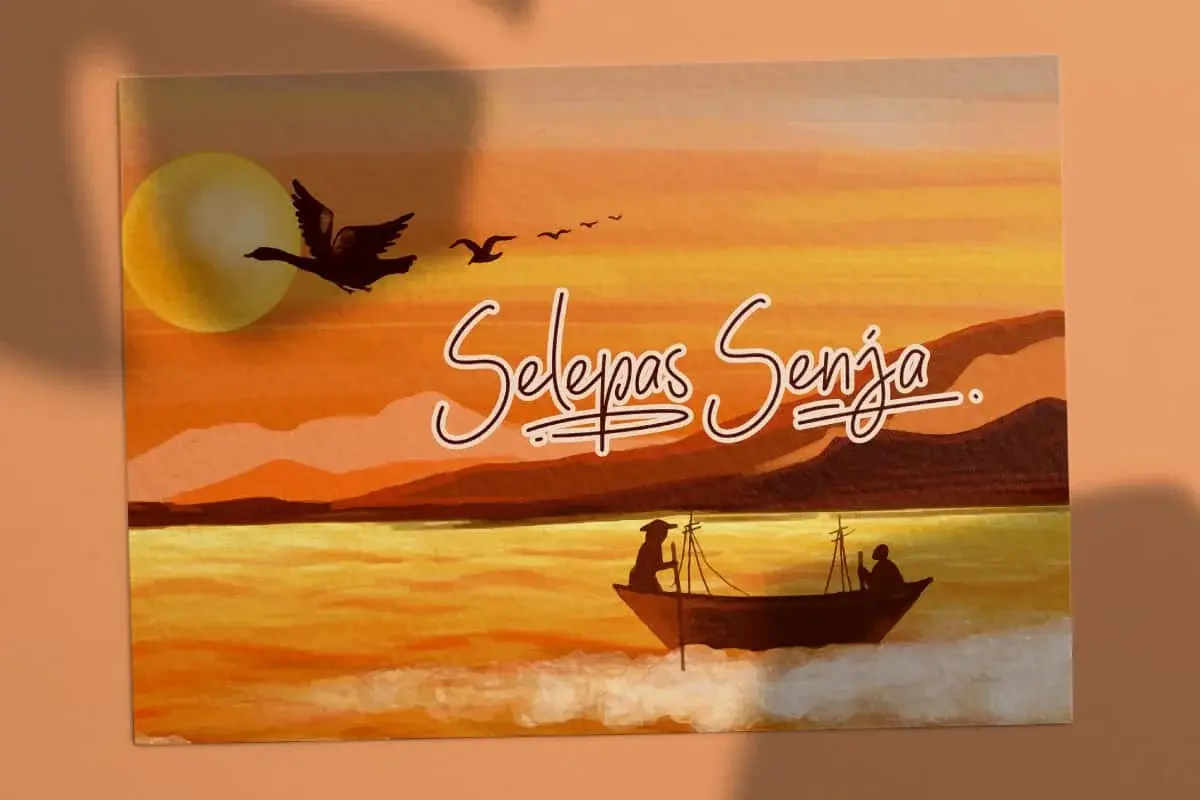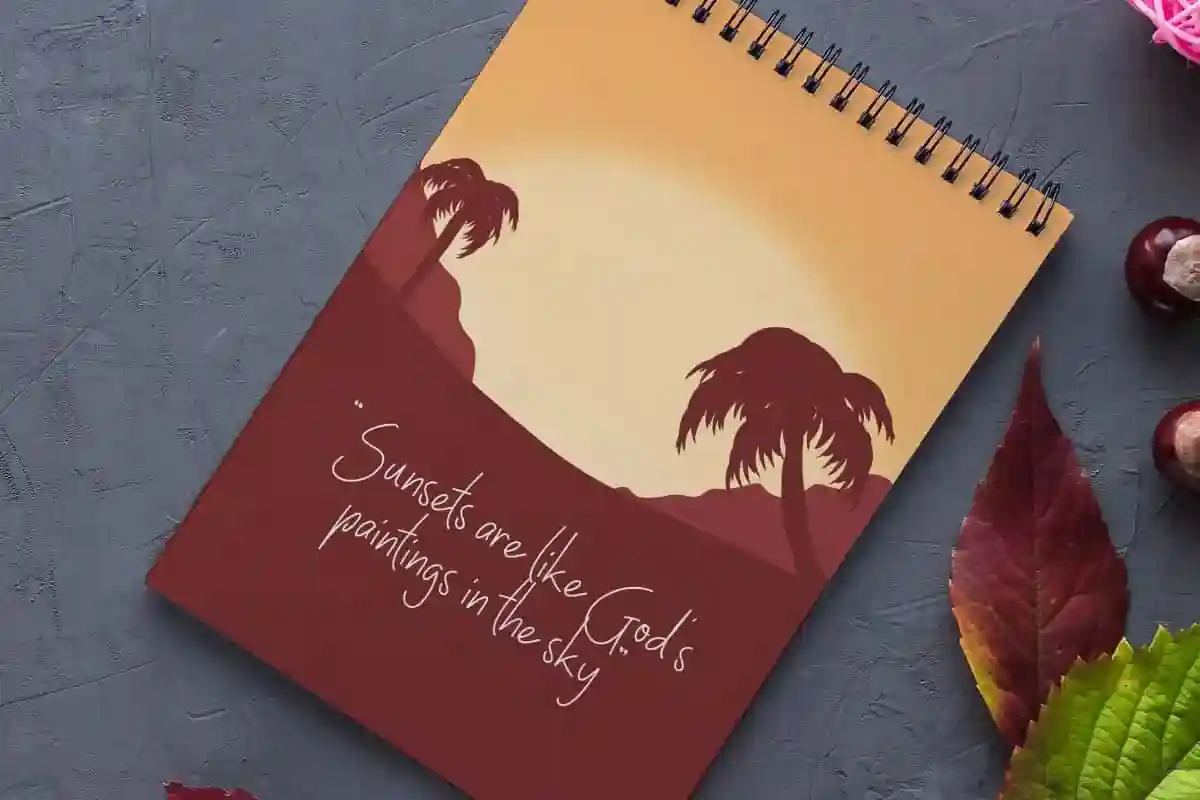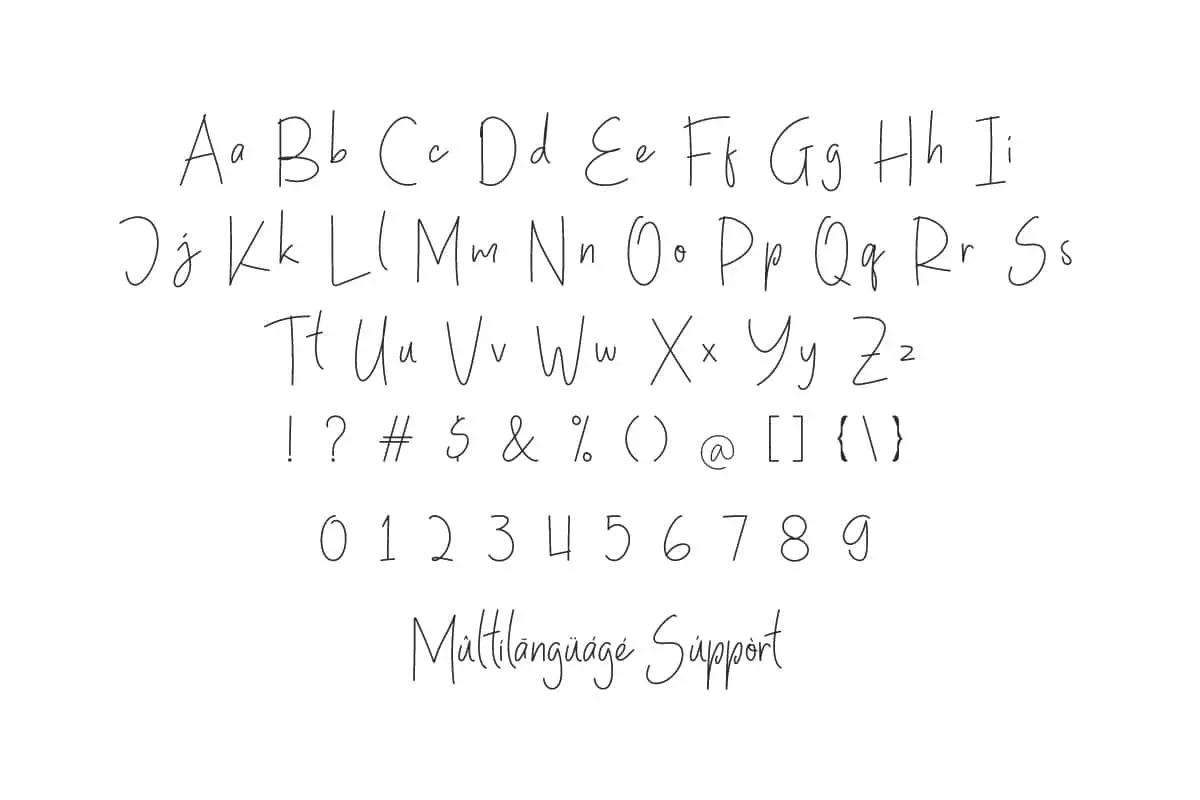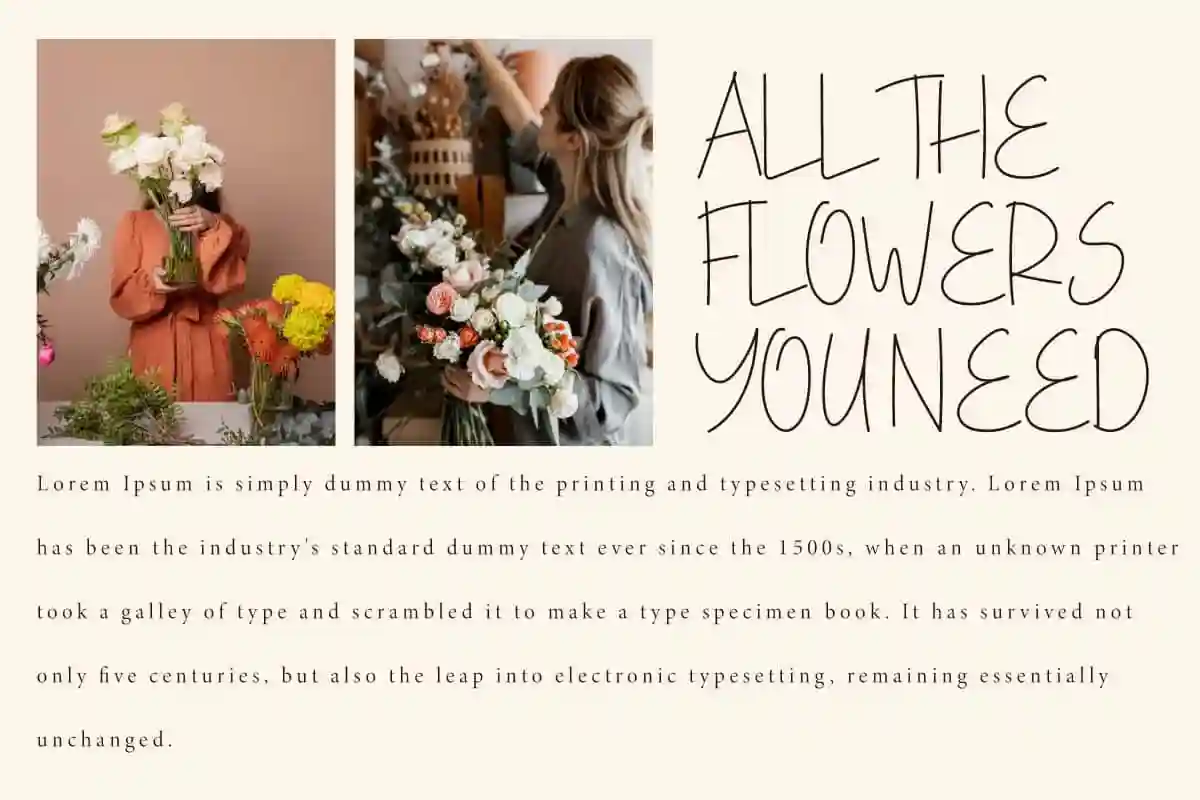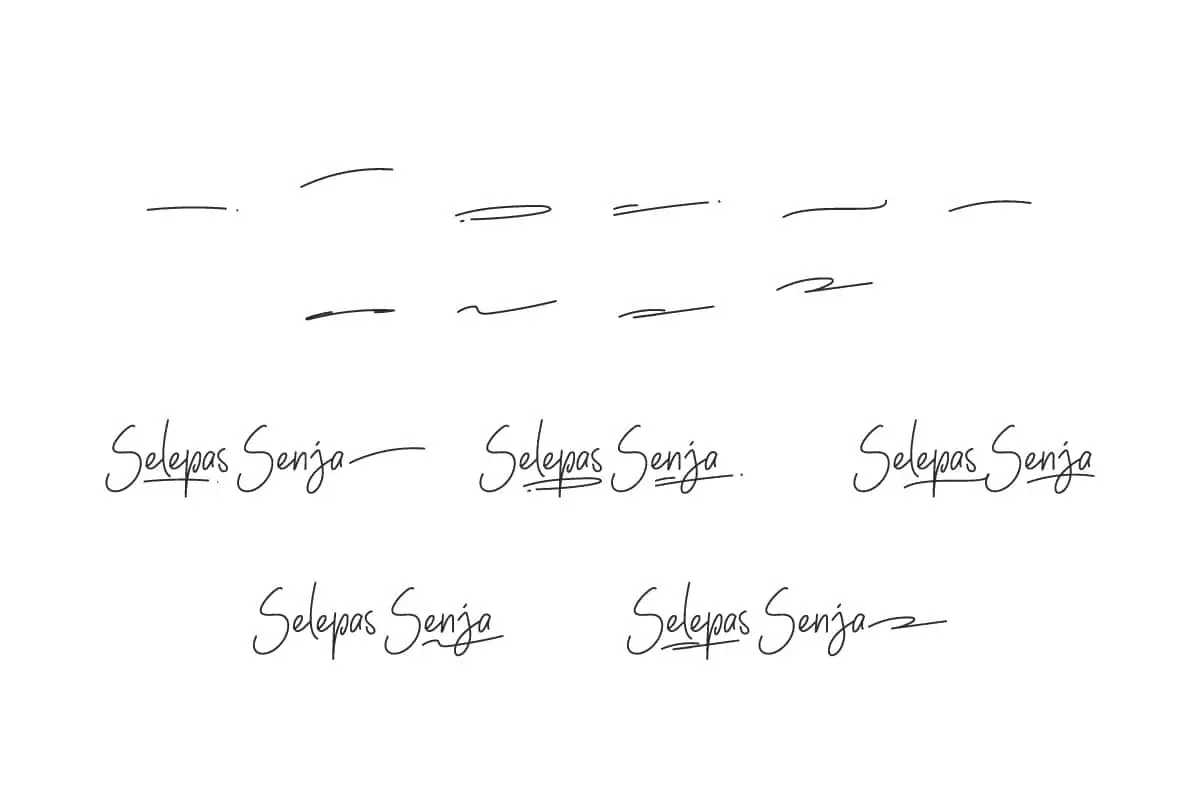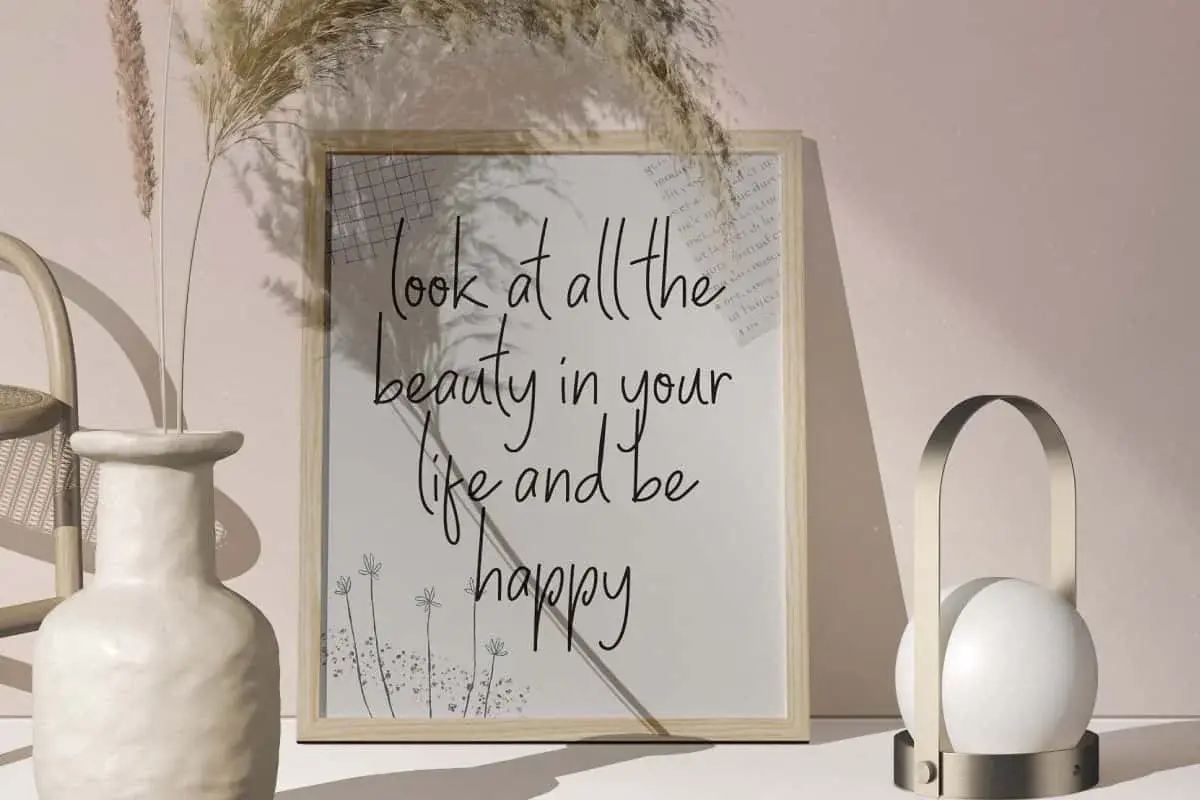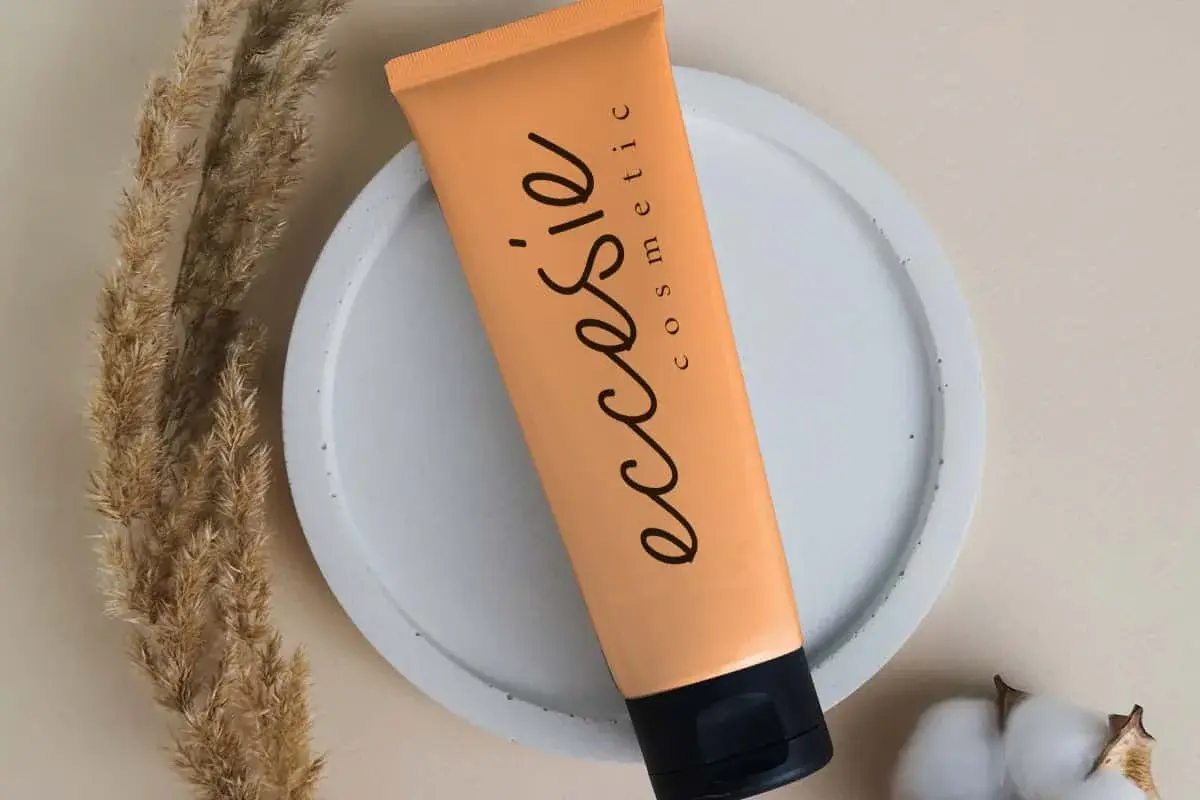
Selepas Senja Font
Selepas Senja Font is a simple monoline font that has more than just typography that elevates your project to design masterpieces.
Selepas Senja Font is a simple monoline font with a stunning signature style, designed to create an elegant impression in each letter in a simple mode. With a smooth typography style and a natural touch, making it the right choice to create a design that looks personal and stunning. Perfect for banners, brochure, covers, greeting cards, invitation, label, logos, mockup, packaging, poster, quotes, stationery, template, website, etc.
Selepas Senja Font includes a complete set of Basic Uppercase and Lowercase Characters, Numbers, Punctuation, Symbols and Swash. Which allows you to customize every desired look on every written word, giving flexibility to beautify the appearance of the letters. This makes it suitable for accessories and gifts, beauty product, florist, graphic design, handicraft, home furniture, photography, travel agent, and more.